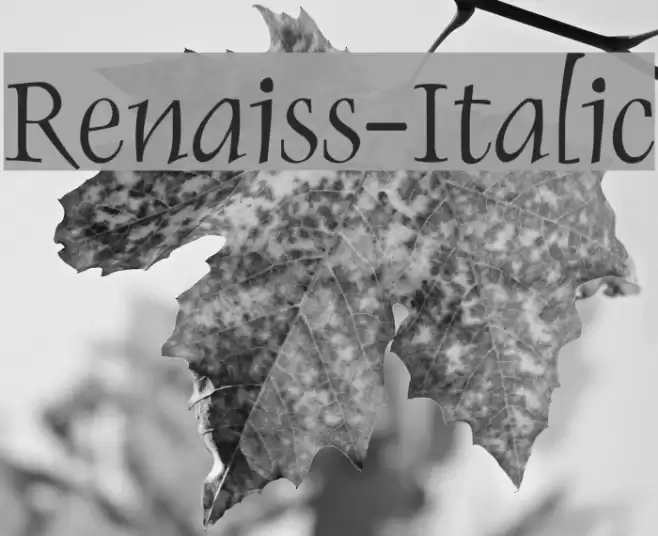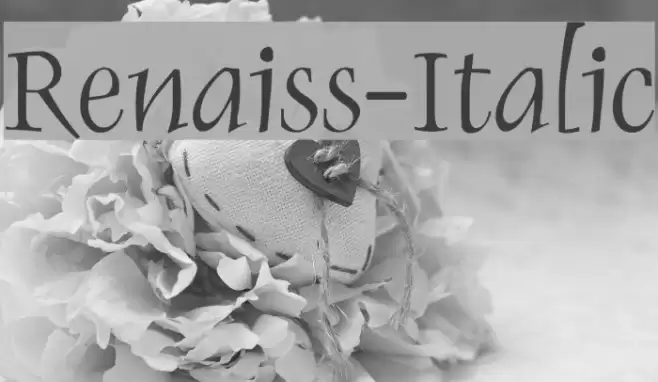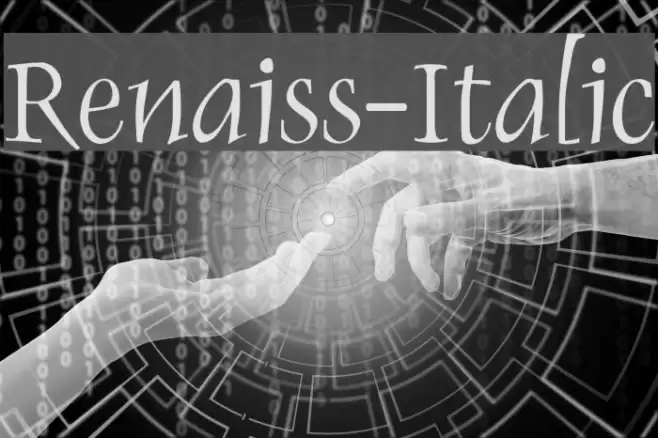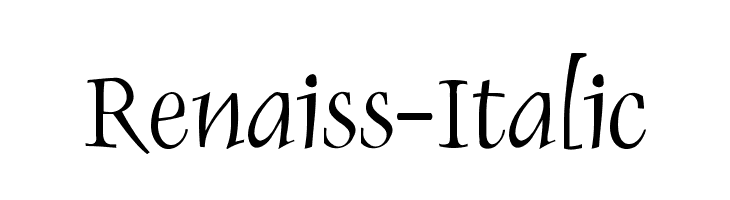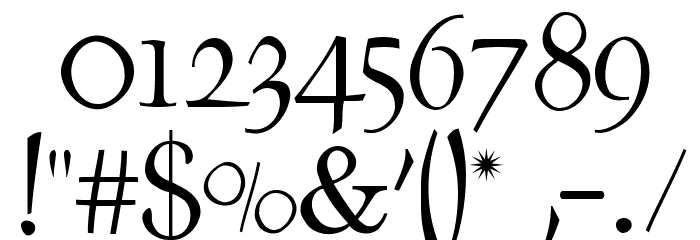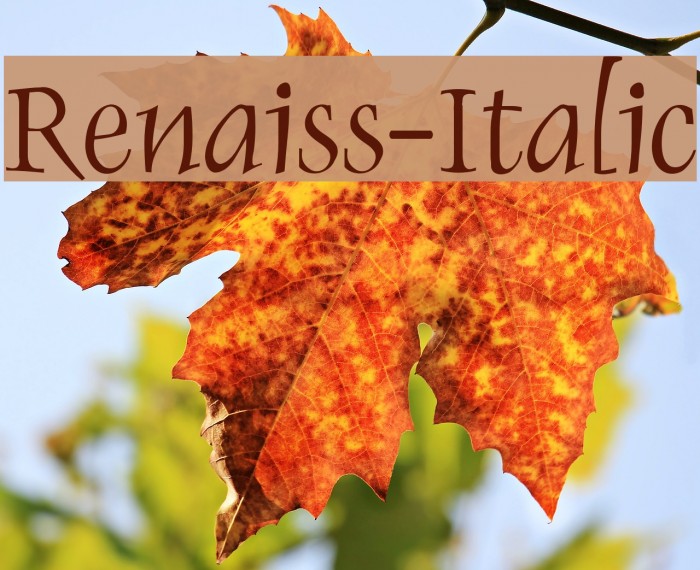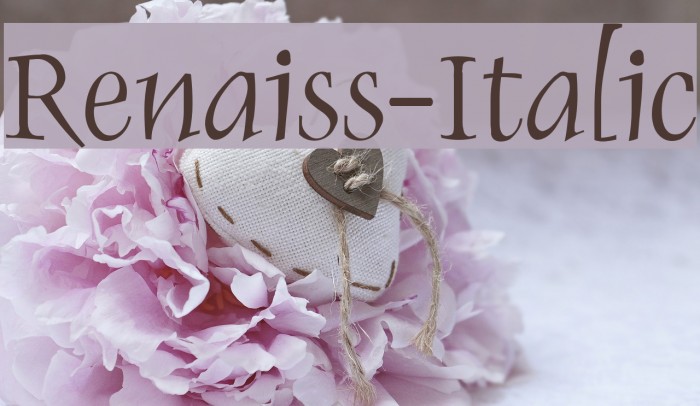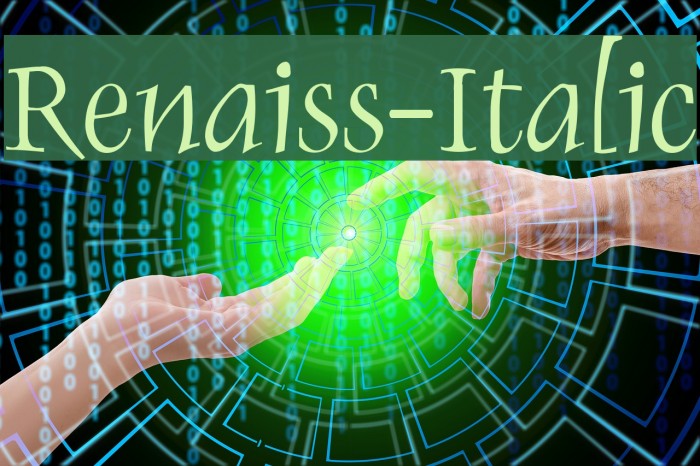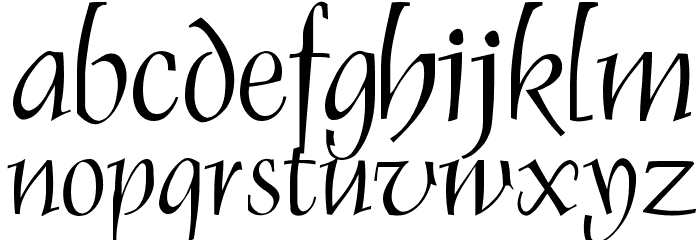
Renaiss-Italic Font
Renaiss-Italic Description
This font features a classic and elegant design with a distinct italic style. The uppercase letters are characterized by their refined and slightly elongated forms, giving them a sophisticated appearance. The lowercase letters exhibit a graceful slant, enhancing the overall fluidity and movement of the text. The numerals are well-proportioned, maintaining consistency with the letterforms. Special characters are thoughtfully designed, complementing the font's aesthetic. The strokes vary in thickness, providing a medium contrast that adds depth and interest to the characters. This font's timeless elegance makes it suitable for a variety of applications.
An elegant italic font with medium contrast and classic styling from Handwritten fonts.
- Proposed Projects: Ideal for wedding invitations, formal event programs, luxury branding, and editorial design.
- Overall Style: Classic
- Use Case: Headlines, Logos, Invitations